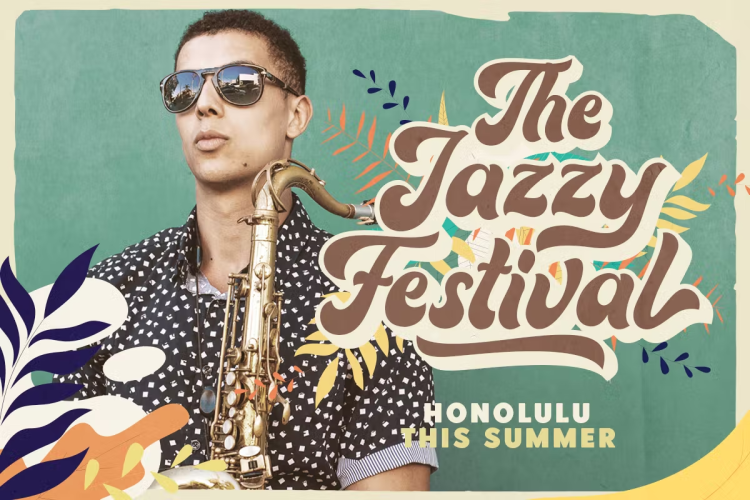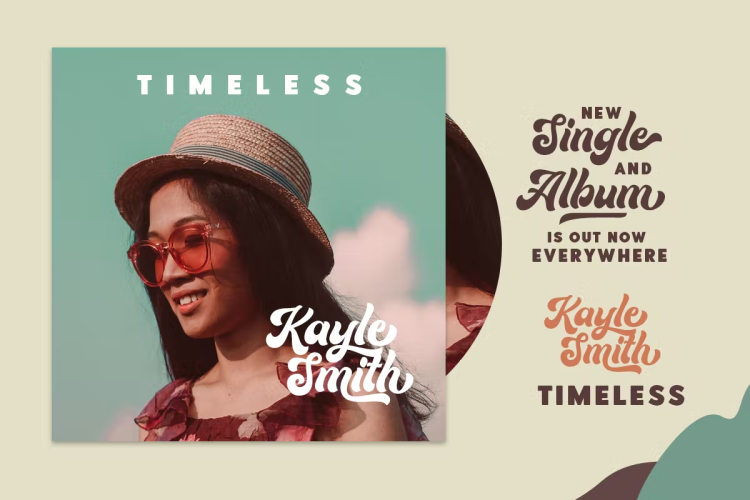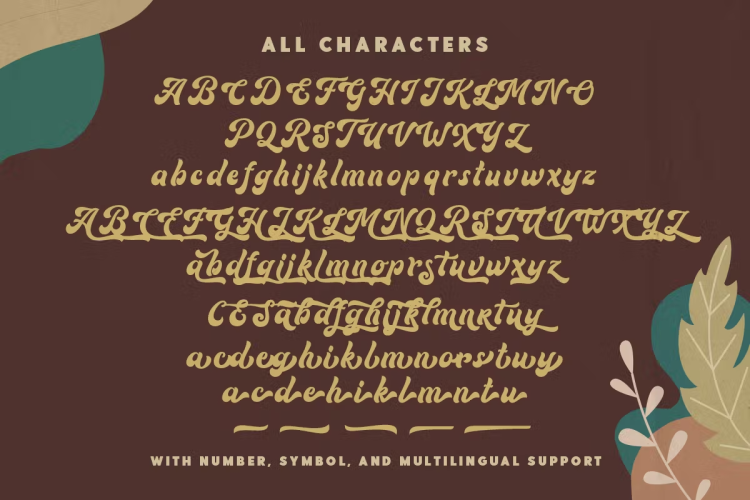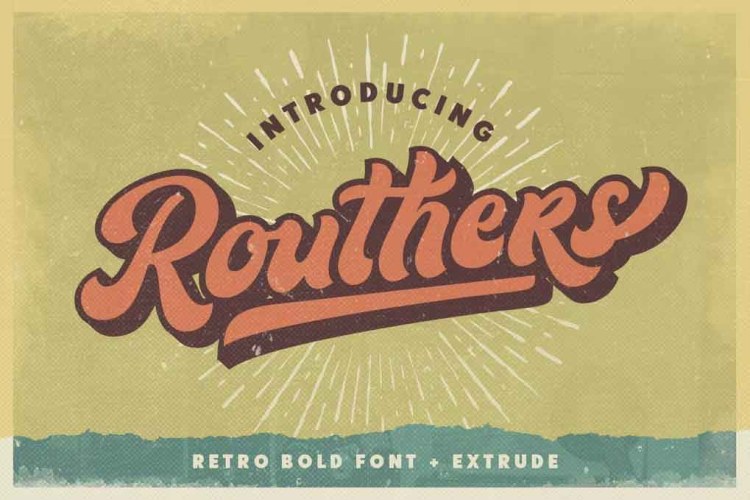
Routhers Retro Extrude Font
Routhers Retro is a retro bold font that contain Uppercase, Lowercase, Numerals, Accents, Punctuation, 4 set alternates, Ligatures, Swash, and also Underline. You can use to make a logo for branding, best for apparel design, and quotes. This font also already PUA Encoded.
Where Routhers Retro Extrude Font works best
A short phrase in Routhers Retro Extrude Font carries warmth that a typeset sans cannot fake; keep the rest of the card plain.
Chalkboard-style headings in Routhers Retro Extrude Font make a menu feel hand-made. Keep the dish descriptions in a simple face so prices stay readable.
One line of Routhers Retro Extrude Font over a photo is enough; the script carries the tone and the caption does the work.
What kind of work does Routhers Retro Extrude Font suit?
It sits in the Script And Handwritten group and reads as bold, branding, retro, script. That makes it a candidate wherever those qualities help: headings, packaging, social graphics and brand work. Set it at the size you plan to use before deciding.